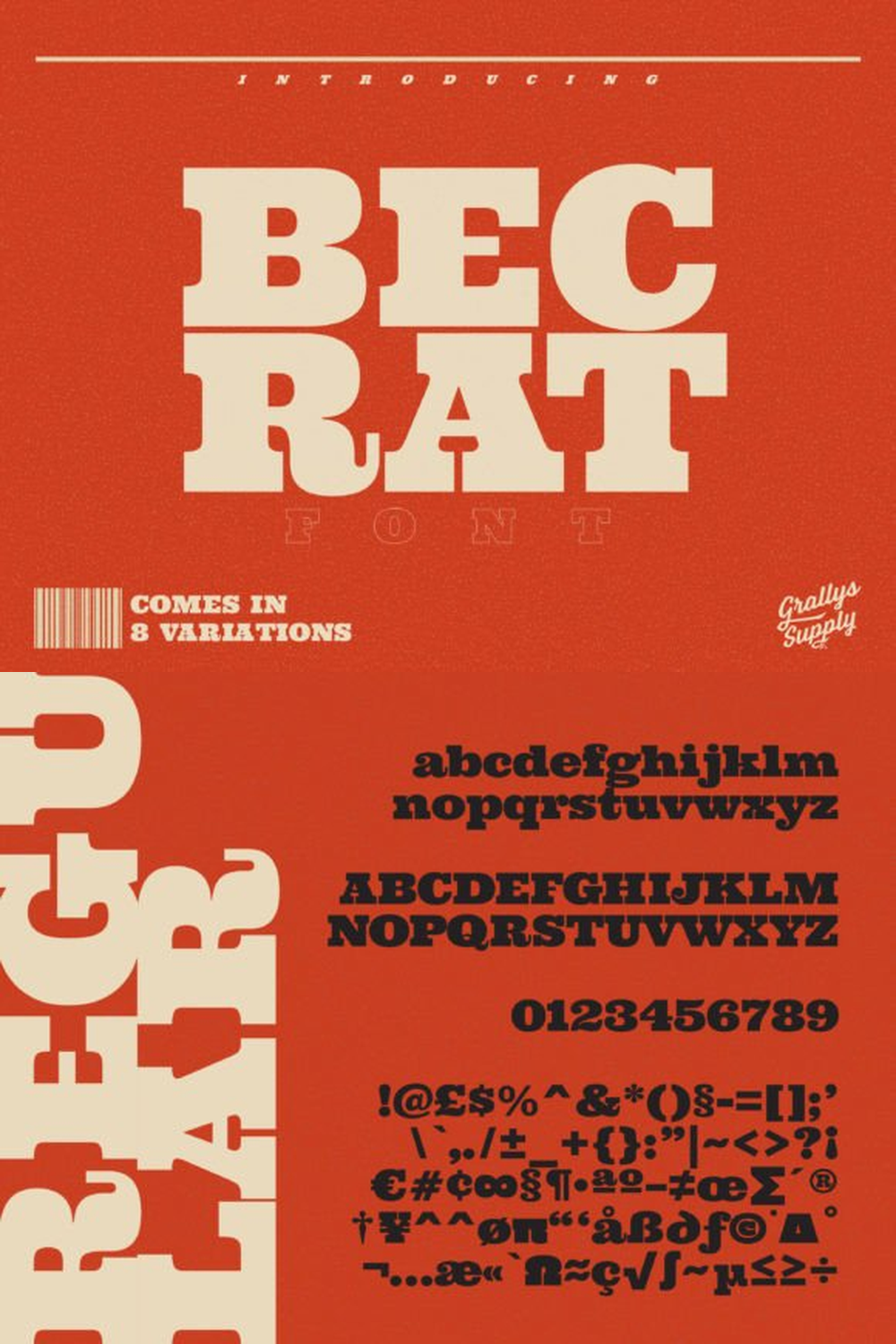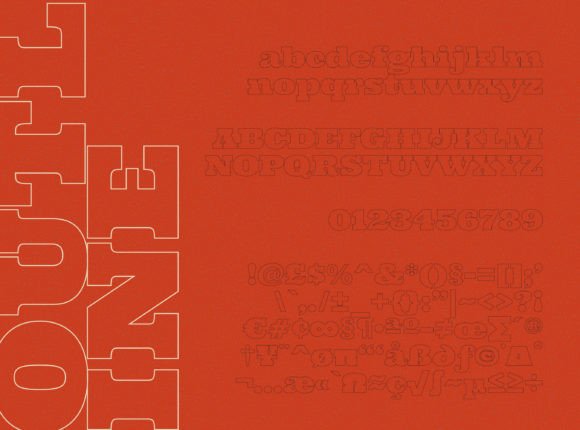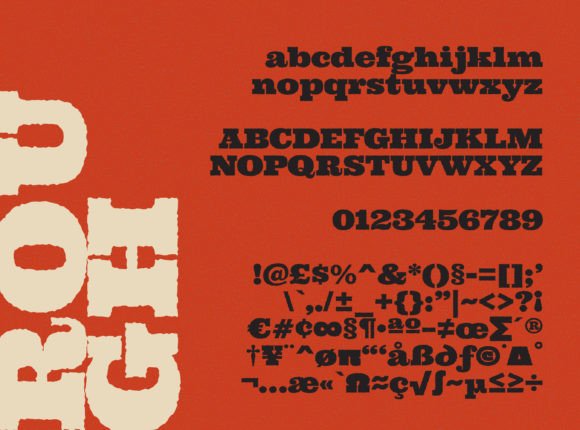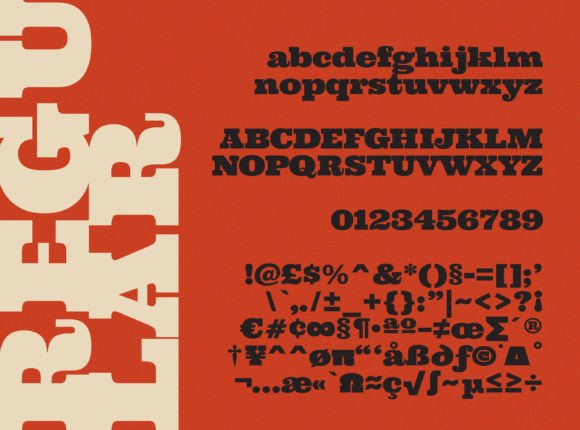
Becrat Font: Bold Slab Serif Typography for Impactful Headlines!
About the Becrat Font
Make a bold statement with Becrat Font, a powerful and memorable font. Becrat is a super bold slab typeface. This font is perfect for an iconic bold and dramatic statement due to its easy legible typestyle.
Add an impact to your headlines with this powerful font family.
Becrat is hand drawn then digitized and tweaked, before being turned into a unique font.